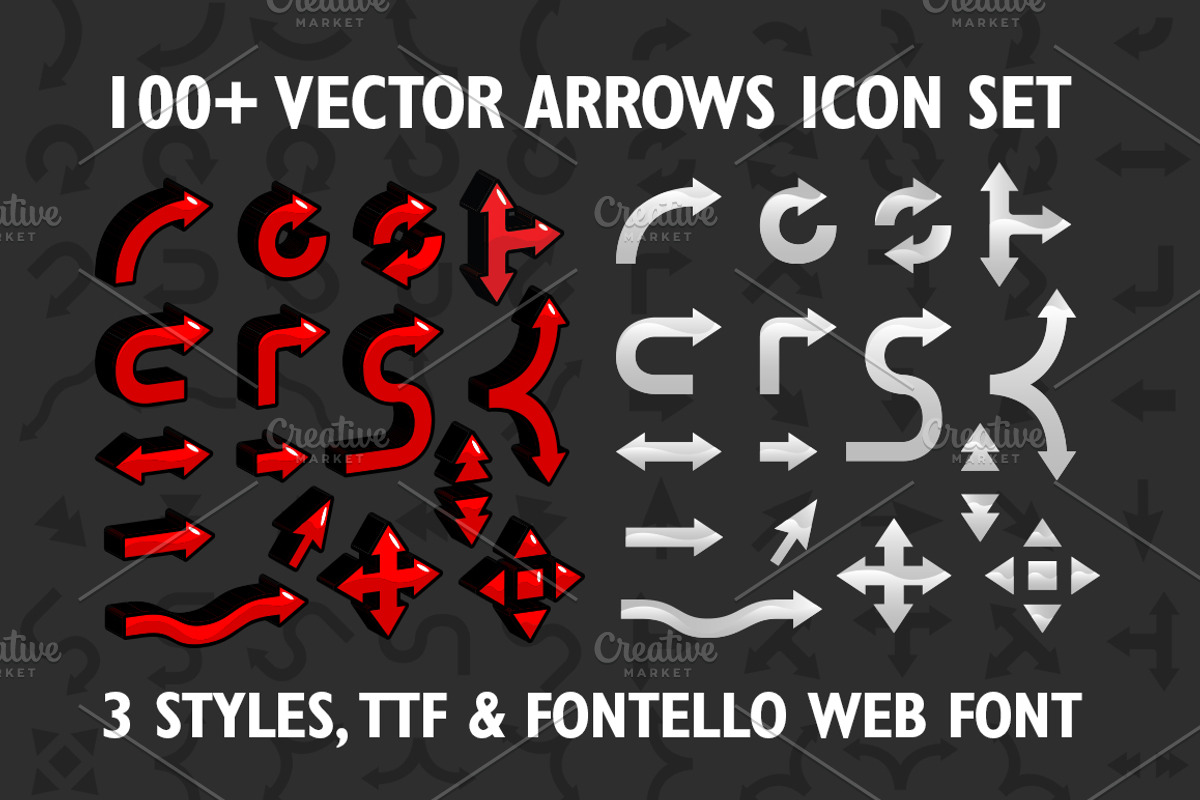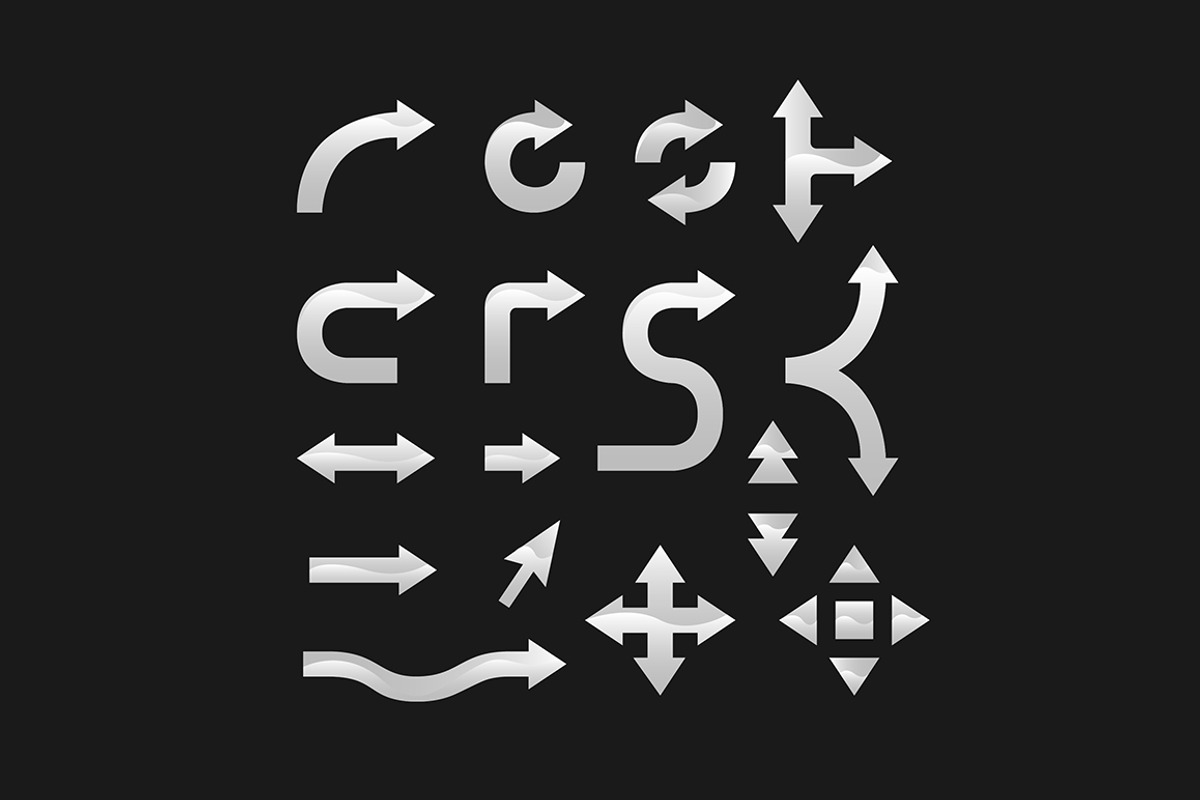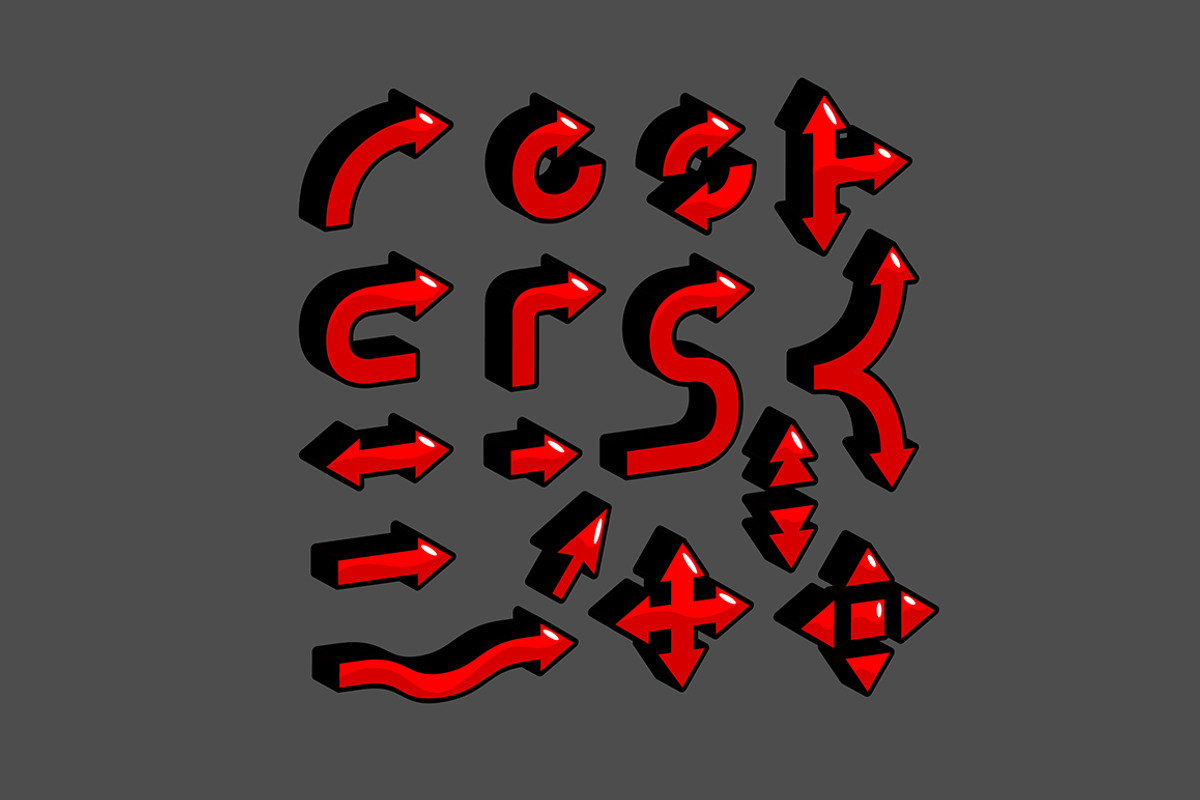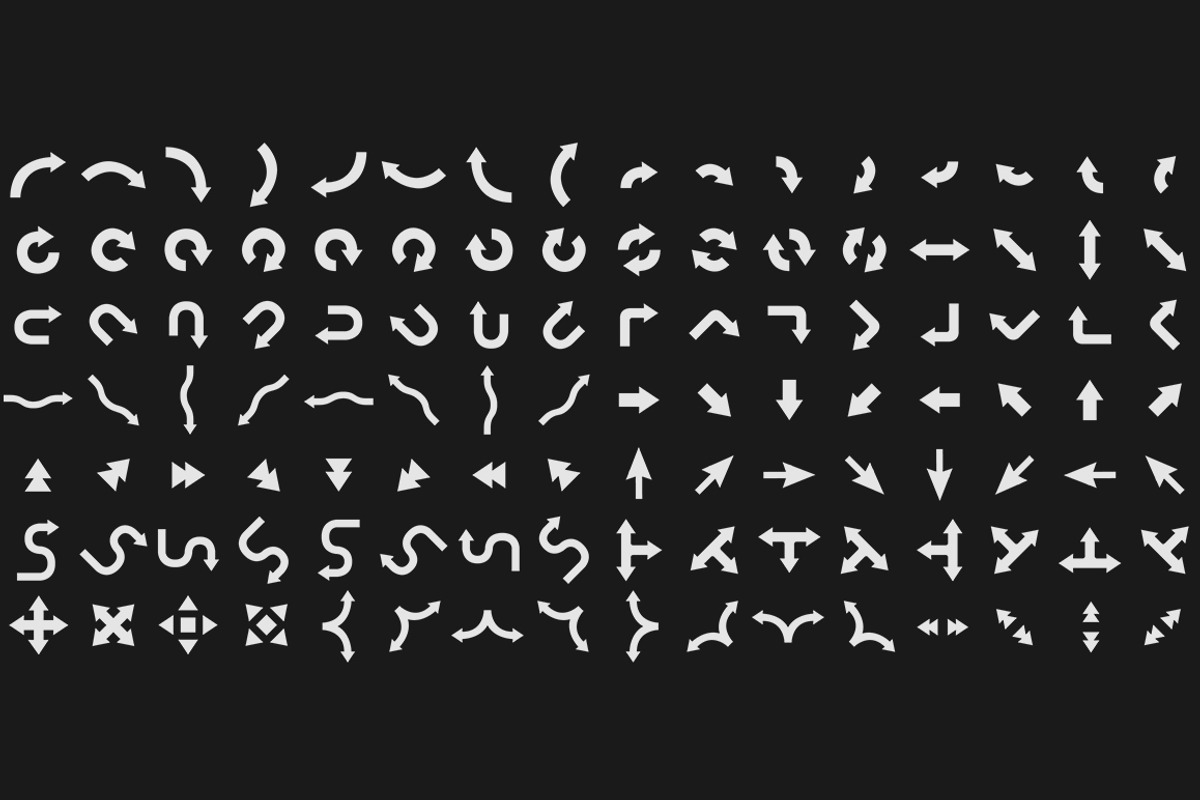
100+ Vector arrows set & web font
100+ Vector arrows set & web font by ToonPlanet Vector Assets is a font selected for branding, posters, packaging, typography.
- 3 different styles included. (3D red, silver and flat)
Why 100+ Vector arrows set & web font is worth a look
100+ Vector arrows set & web font by ToonPlanet Vector Assets fits naturally into Branding, posters, packaging, typography.